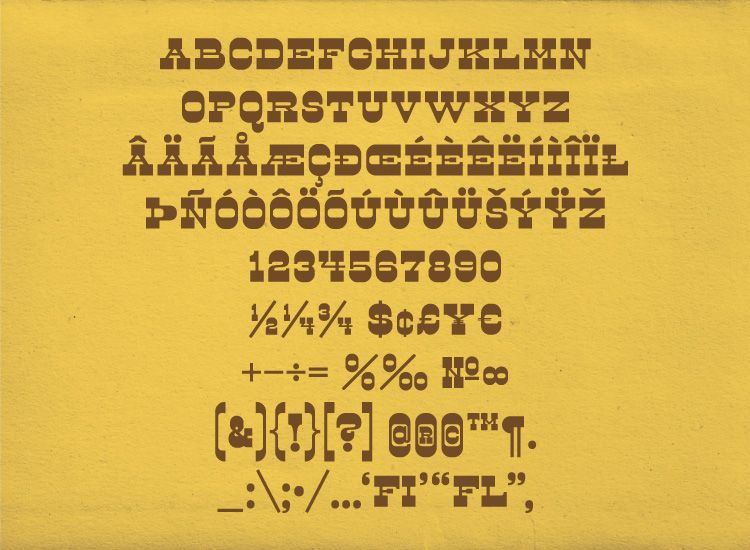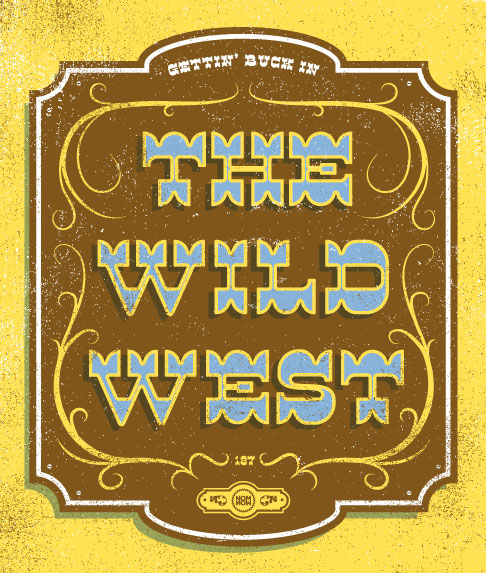
Dude is a reverse contrast cowboy font thats got true grit. It's not about weight, its about style. Twelve different serif styles inspired by country musics legends. Whiskey drinking, train hopping, fist fighting, hard loving, prison breaking, men and women, who poured their hearts out in song.